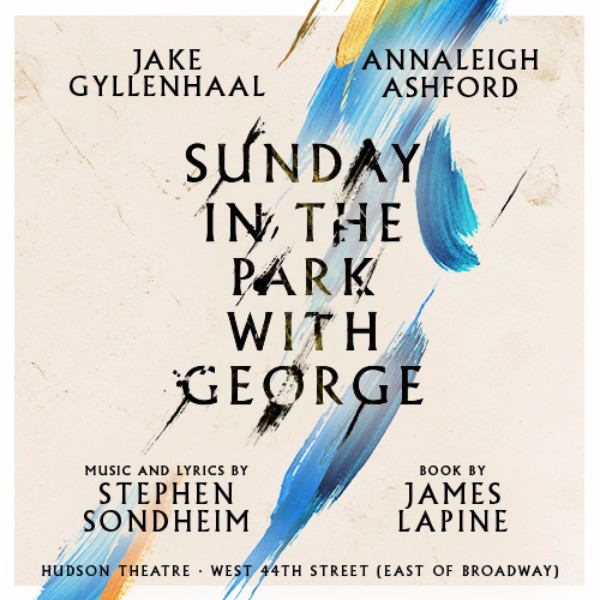
Sunday in the Park with George Font
EntertainmentSunday in the Park with George is a musical written by Stephen Sondheim and James Lapine, based on Georges Seurat's painting "A Sunday Afternoon on the Island of La Grande Jatte." The musical explores the artistic process and the challenges of balancing love, art, and life.
The promotional poster of the musical features the Albertus font, designed by Berthold Wolpe between 1932 and 1940 for Monotype. The glyphic serif font was named after the thirteenth-century philosopher and theologian Albertus Magnus.